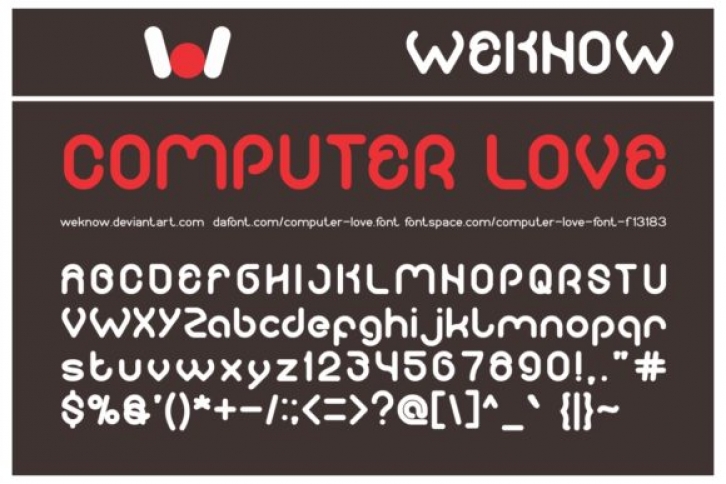
Computer Love celebrates abstract shapes in all their eclectic beauty. This playfully conceptual display font typeface font will look truly outstanding in a wide range of contexts.